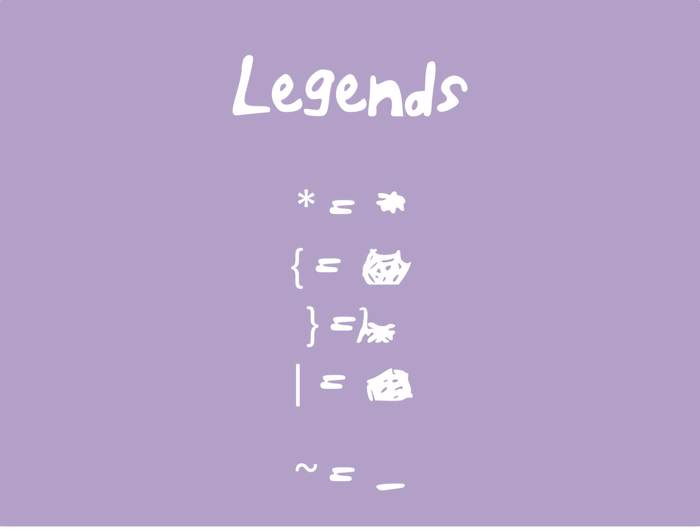
ELF_Emma_and_the_Tiny_Spider Font
Here is my third font! It turns out to be better than my second font (if you know what I mean ;) ). Thanks for downloading my fonts! Double TY for applecinnamonpie10 (FontSpace user) who asked for a handwriting/spider font :) See you guys again next time!!! Bye! :D :D :D